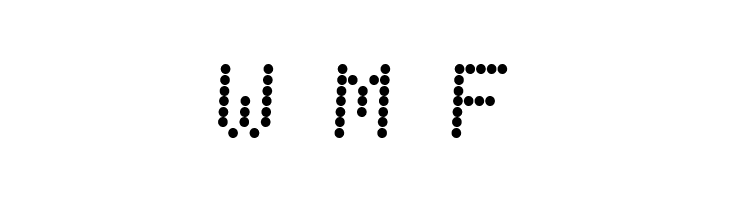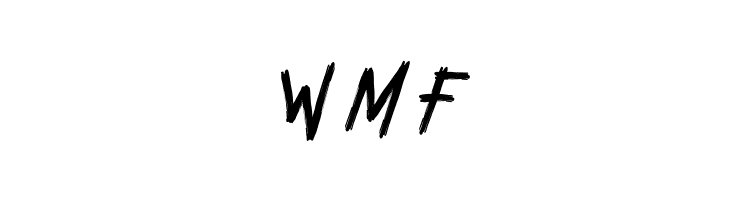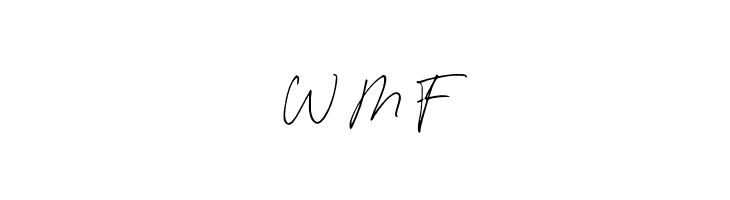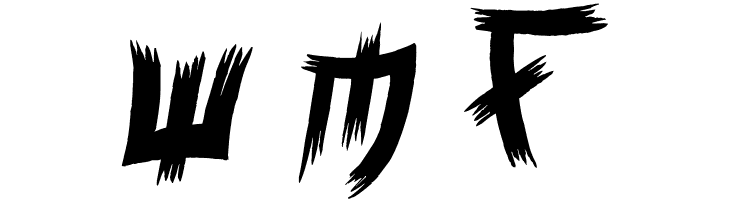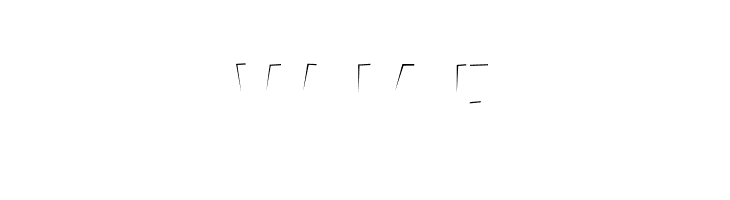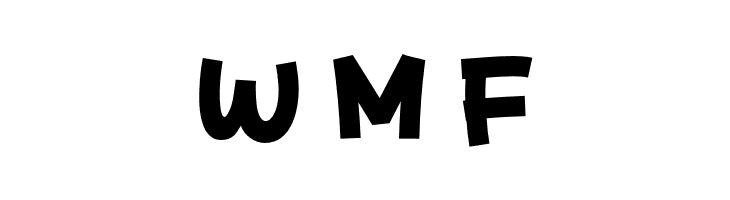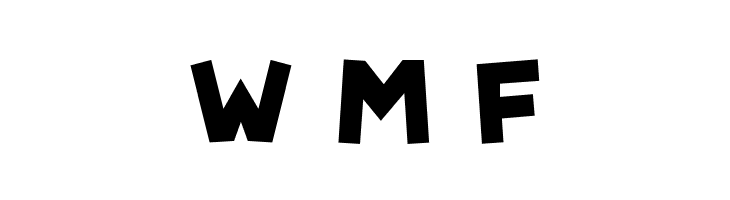
A dot-matrix style font inspired by digital displays and LED screens.
A bold, edgy font with sharp, angular strokes and a dynamic feel.
A tall, narrow, and modern font with tight character spacing.
A bold, condensed font with tall, narrow characters and a modern aesthetic.
A fluid and elegant script font with a handwritten appearance.
A lively, handwritten font with fluid strokes and artistic flair.
A bold, dynamic font with brush-like strokes, perfect for manga-inspired designs.
An abstract, deconstructed font with thin, sharp strokes and a futuristic style.
A bold, playful font with exaggerated curves and a lively appearance.
A playful, cartoonish font with bold, exaggerated characters and whimsical elements.